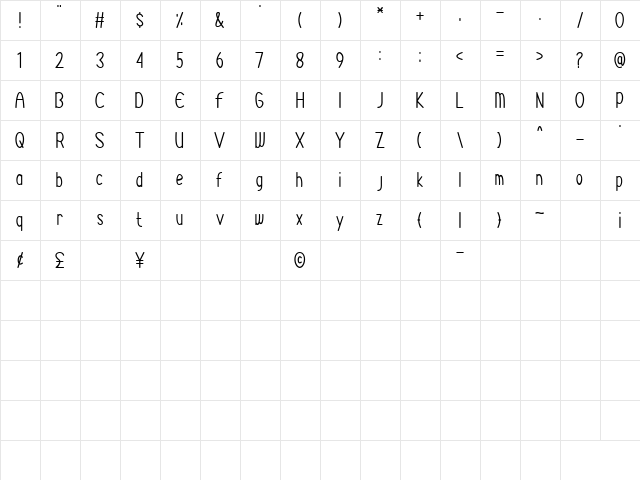
Syariana Regular
| Designer | Adhi Setya |
Design Context for Syariana Typeface
Syariana is a composed and adaptable typeface that performs quietly and consistently across a wide range of design contexts.